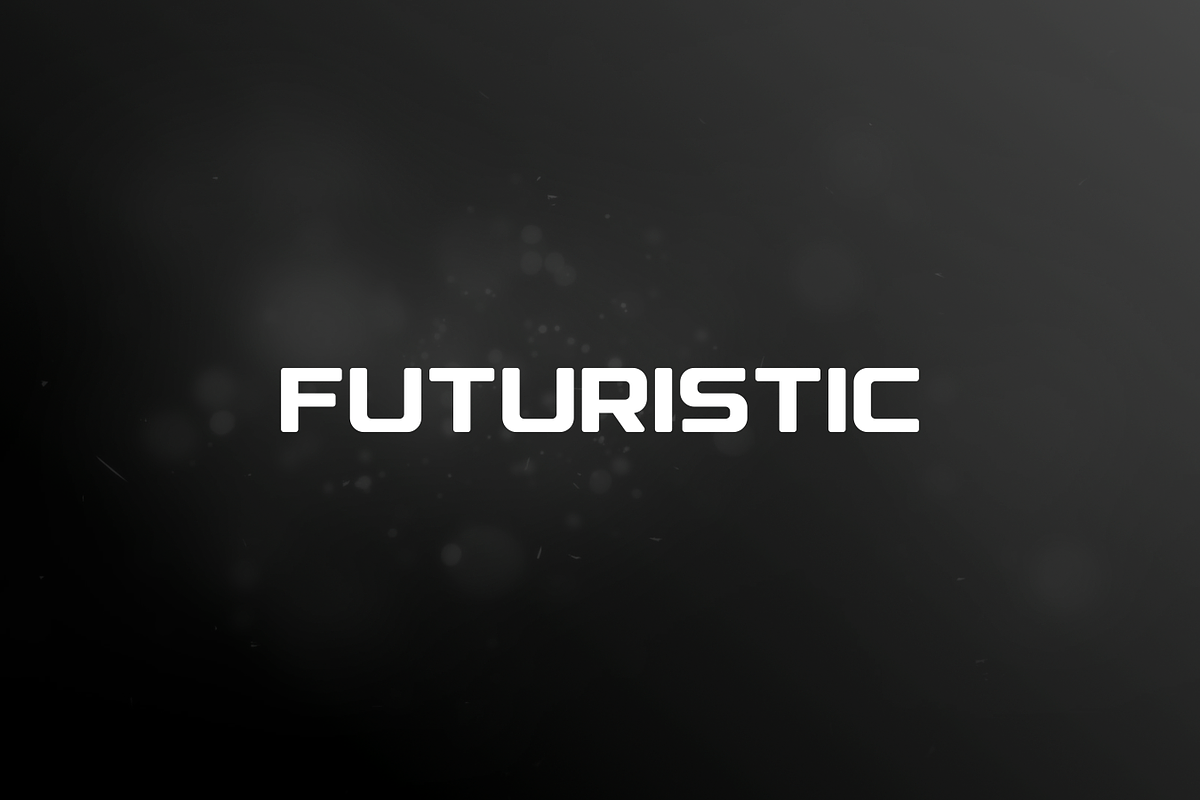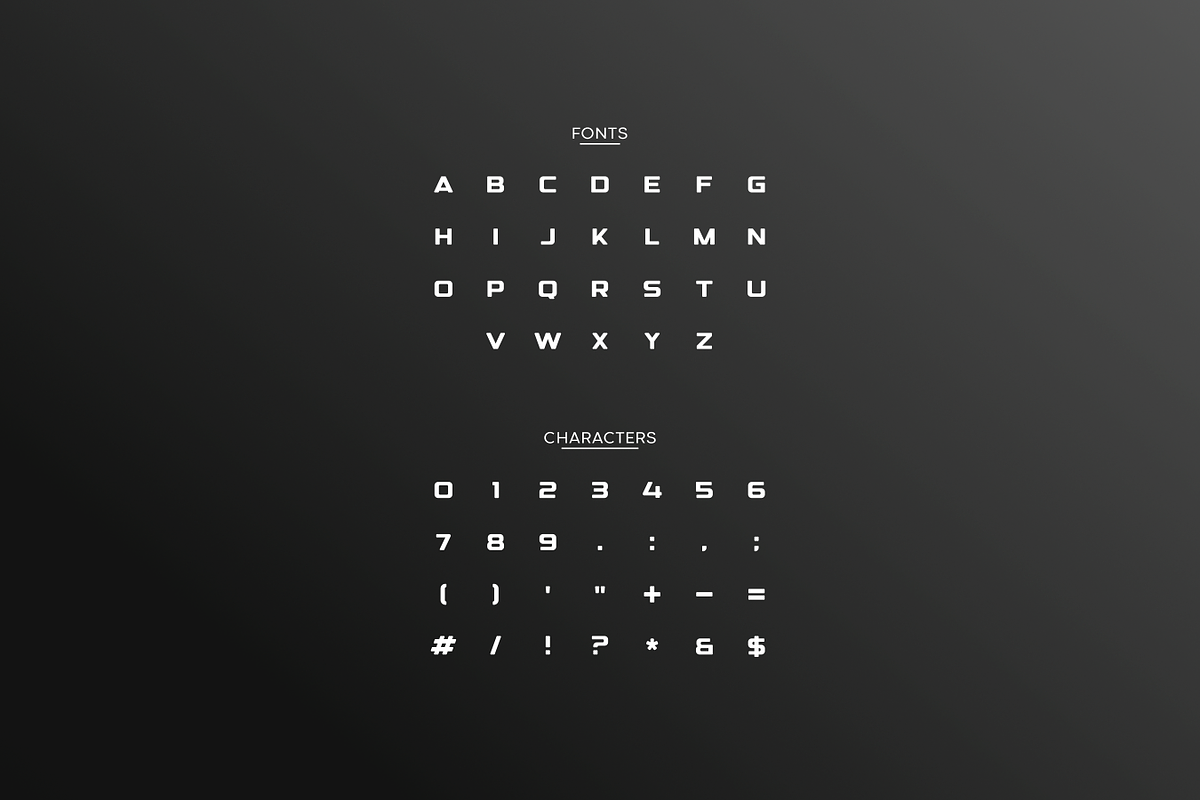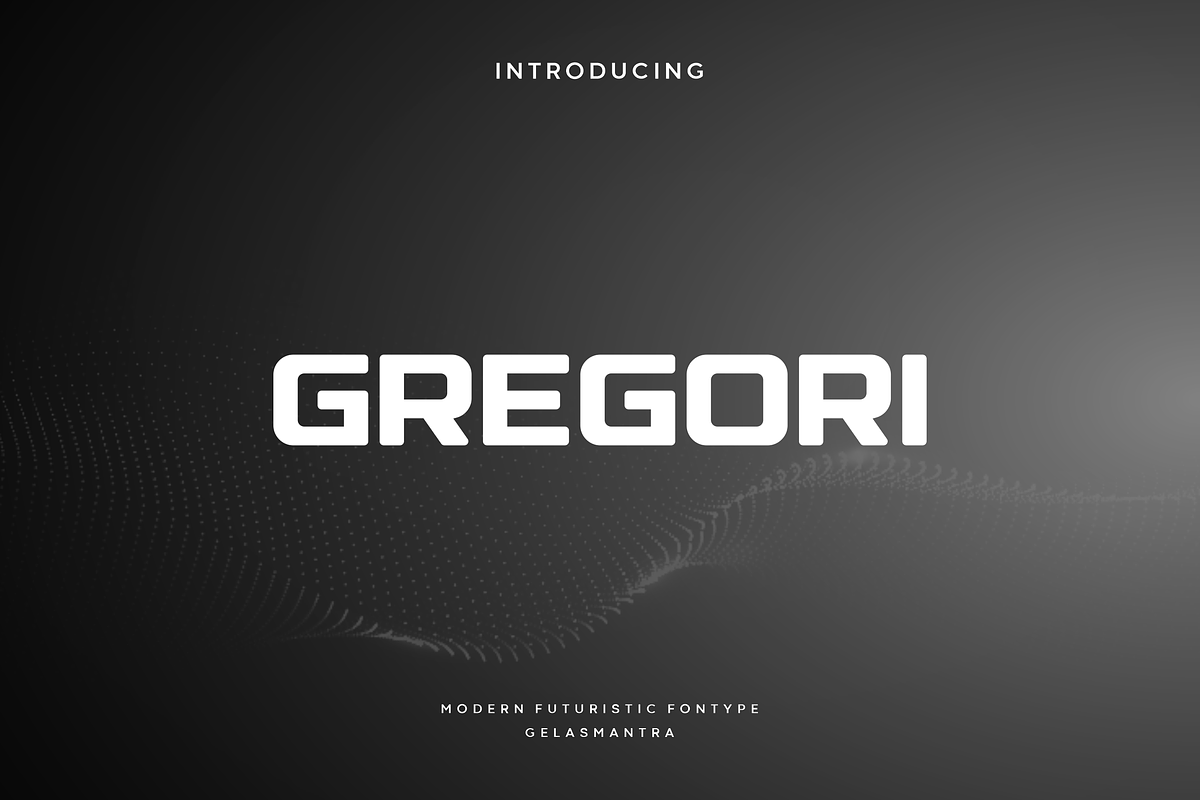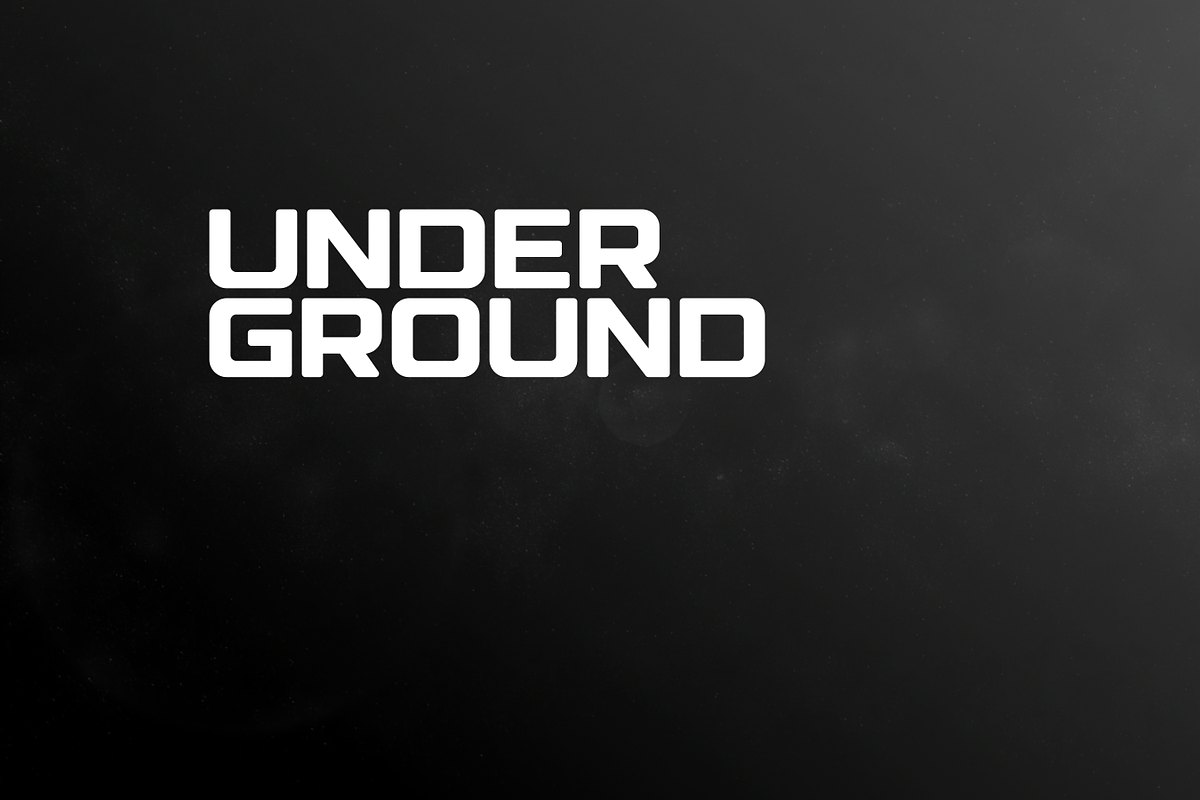
Gregori
Gregori is a decorative sans serif typeface with brings science fiction style, modern and minimalist. This typeface is available in all caps only. It can appropriate for many logos, headlines, and titles.